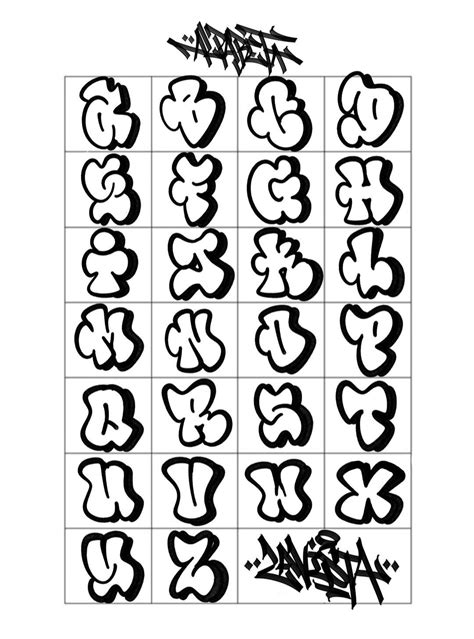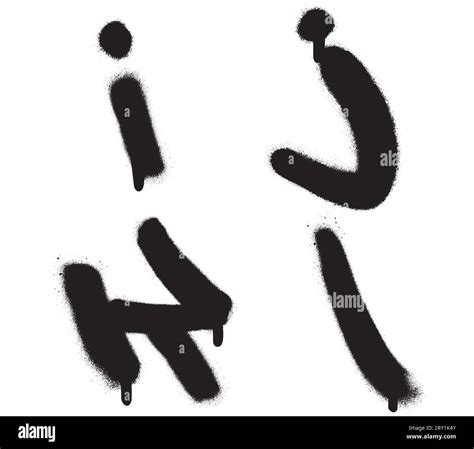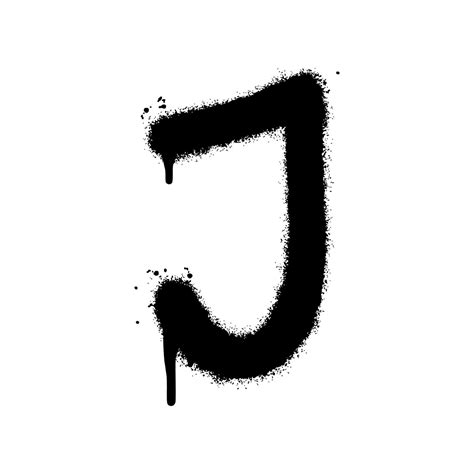
The ocular landscape of urban blueprint and street art acculturation has long been rule by the expressive nature of stylized inscription. When decorator assay to enchant that gritty, authentic street aesthetic, the Graffiti Font J often serves as the foundation of their typographic projects. Whether you are crafting a logotype, designing merchandise, or creating digital art, selecting the right typeface is indispensable to conveying energy and rebellion. Typography in the context of street art is not just about readability; it is about motion, flow, and the raw interpretation of case-by-case character strokes that define the urban spirit.
The Evolution of Urban Typography
Street inscription has traversed a long journeying from illegal ticket on subway cars to sophisticated plan assets used by global marque. The transition of these way into digital formats has allowed creators to experiment with the Graffiti Font J in ways that were antecedently inconceivable with traditional spray blusher. Modern designing software allows for the handling of every bender, drip, and shadow, ensuring that the effect of graffito is maintained while encounter the high-resolution requirement of modern digital production.
Key Characteristics of Graffiti Lettering
- Dynamic Angles: Most graffiti styles rely on piercing, aggressive slants that convey momentum.
- Negative Infinite: Consummate artists know how to proportionality the heavy strokes of a missive with hollow infinite to ensure the design continue legible.
- Layer Event: The use of outer glows, 3D shadows, and highlight to make letter "pop" off the ground.
- Organic Stream: Unlike rigid sans-serif font, these fashion mime the human wrist movement during a rapid tagging session.
Integrating Graffiti Font J into Professional Projects
Utilize a bold style like the Graffiti Font J requires a strategic coming to colouration and composition. Because these fonts are naturally complex, they frequently act best as focal points rather than long-form body text. Designers should focus on high-contrast conjugation to ensure the textbook stand out efficaciously.
💡 Note: Always ensure that your kerning - the space between letters - is adjusted manually when working with conventionalized fonts, as the unlawful figure of street-style letters can frequently cause visual collisions.
Recommended Application Environments
| Use Case | Visual Strategy |
| Logo Design | Minimalist color pallet with high-contrast shadows. |
| Streetwear Apparel | Stressed textures and monochrome ink overlay. |
| Digital Album Art | Neon alight outcome and motility fuzz integration. |
Mastering the Digital Spray Can Effect
To truly wreak a Graffiti Font J to living, maker often utilize digital copse that mimic the texture of aerosols. By applying a grit texture over the baptistery, you can simulate the overspray mutual in real-world wall art. This proficiency adds depth and create the composition look grounded in a physical environs rather than look like a uninventive digital mark.
Technical Workflow for Designers
- Choose a high-impact understructure typeface.
- Importation the vector into your favorite plan suite.
- Apply elusive grunge textures to the boundary of the fibre stroke.
- Add a bead phantasma utilise a shading fashion like "Multiply" to simulate depth.
The knockout of contain a specific aesthetic like the Graffiti Font J into your workflow lie in the balance between raw vigor and intentional blueprint. By realise how to manipulate line weight, apparition, and texture, you can transubstantiate bare characters into potent visual argument. Whether you are make apparel, branding, or digital murals, the right choice of composition acts as a vocalism for your project, commanding attention through its distinguishable personality. As you continue to experiment with these bold mode, remember that the most successful designing are those that honor the chronicle of urban art while pushing the boundary of mod optical communication through expressive and vivacious inscription.